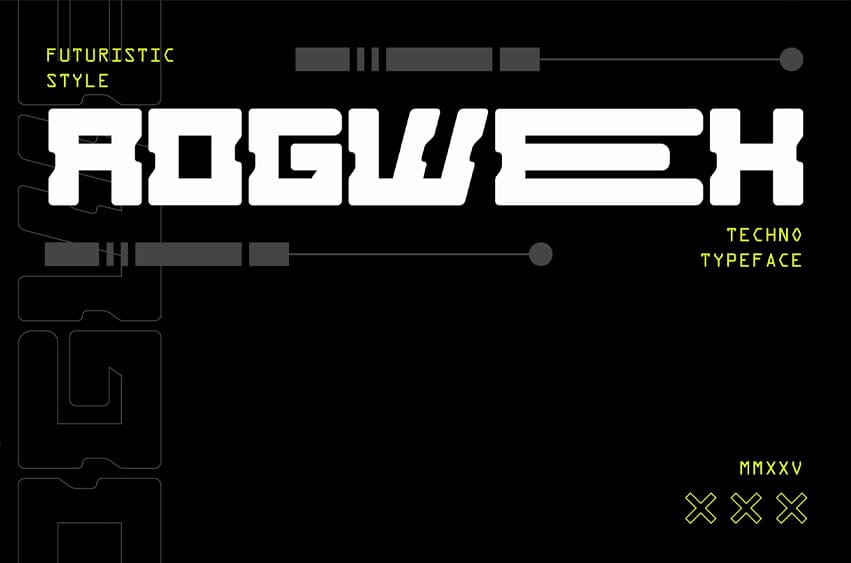
Rogweek Font is a futuristic font that blends sharp, angular lines with sleek, minimalistic design elements.
Its modern, geometric structure creates a bold and forward-thinking appearance, making it ideal for technology-focused projects, branding, or any design that requires a cutting-edge, sci-fi-inspired aesthetic.